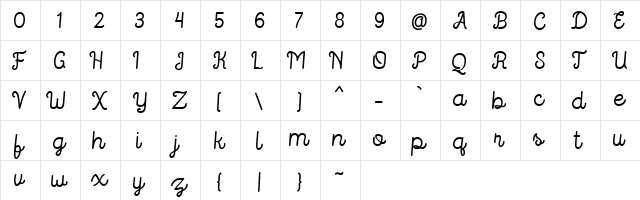
Routerline Free Version Regular
| Foundry | Viaction Type Co |
| Designer | Lukman Hidayat "Viaction Type Co" |
Design Context for Routerline Free Version Typeface
Routerline Free Version takes a measured approach to typography — its balanced proportions and neutral character make it a reliable workhorse for both digital and print work.